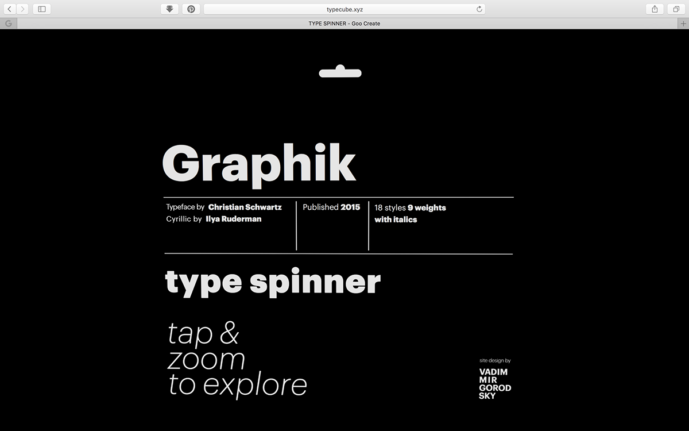
Graphik Font Family
Designer: Christian Schwartz, Ilya Ruderman & Hrvoje Živčić
Graphik Font Family was inspired by the appealing plainness seen in many of the less common 20th century European sans serifs and in the hand-lettering of classic Swiss Modern posters. The lighter weights were influenced by the less popular sans serifs that many European foundries released to compete with Futura, Helvetica and Univers, the juggernauts of 20th century sans serifs. These influences included Neuzeit Grotesk, Folio, Recta, and Maxima. The heavy end of the family is inspired in part by Paul Renner’s Plak, a relatively obscure display typeface cut only in large sizes.
First drawn as the house style for Schwartzco Inc., it was further developed for Condé Nast Portfolio and later for Wallpaper* and T, the New York Times Style Magazine. The low contrast and large x-height give the typeface great versatility. It is suitable for display purposes as well as for text sizes, captions and for such specific tasks as navigation systems and map-making. By the way, the web-site of type.today is set in Graphik. The typeface is available in nine weights, with italics, each with five sets of figures.
The Cyrillic extension was drawn by Ilya Ruderman (CSTM Fonts) in 2015.